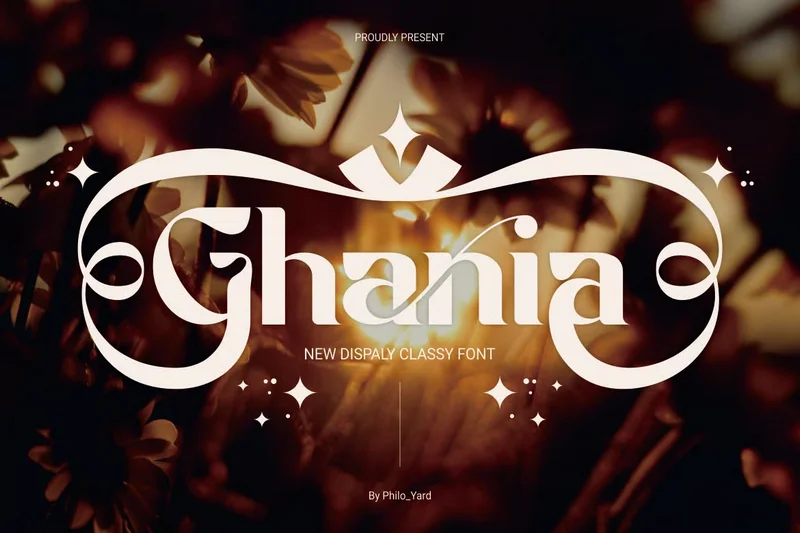
Ghania – New Display Classy Font
Introducing our new product Ghania – New Classic Display Font
Ghania is a versatile and unique typeface that comes in a variety of styles, each with its own unique feel and character. This typeface can easily be used for a variety of creative projects. It provides an elegant and professional look for any project.
Can be used for:
Branding & visual identity
Product packaging & labels
Invitations & stationery
Posters, flyers & marketing materials
Projects that require a touch of elegance and prestige